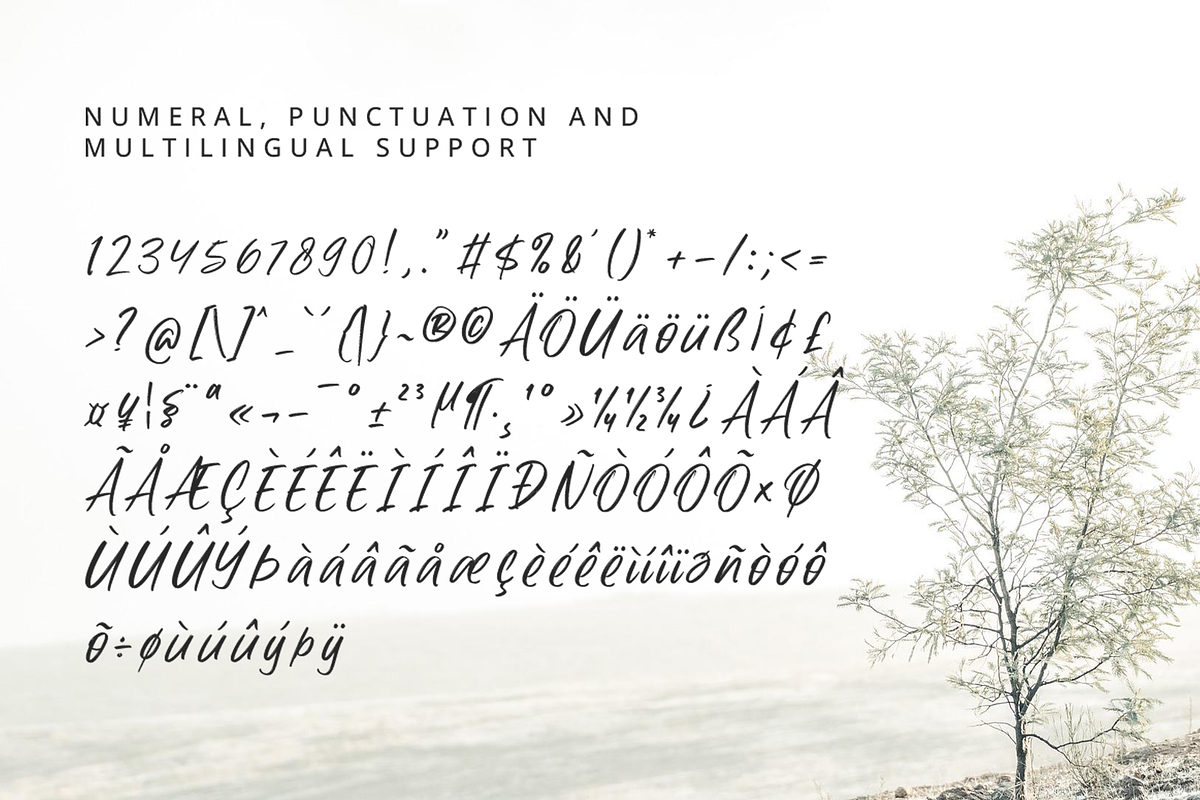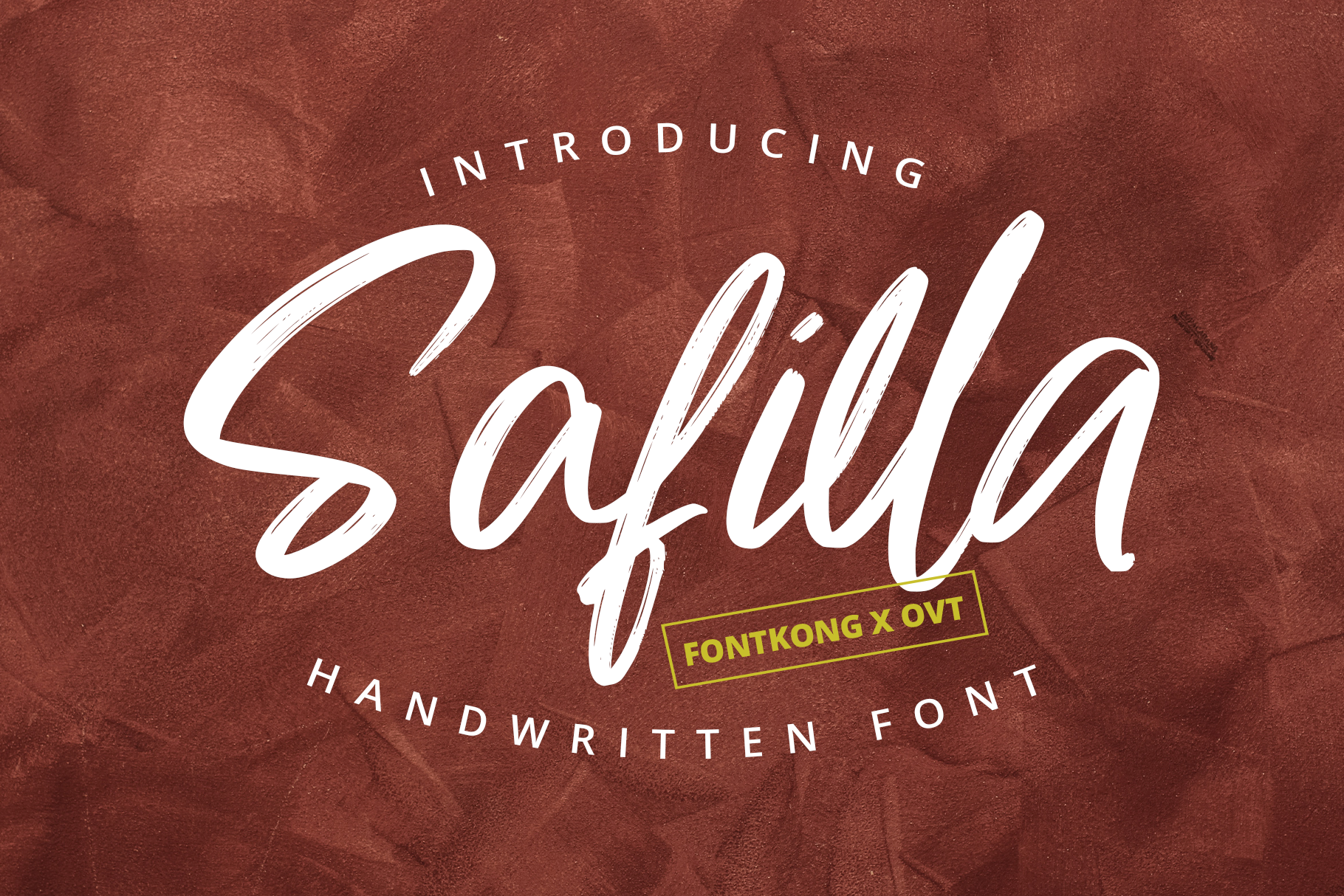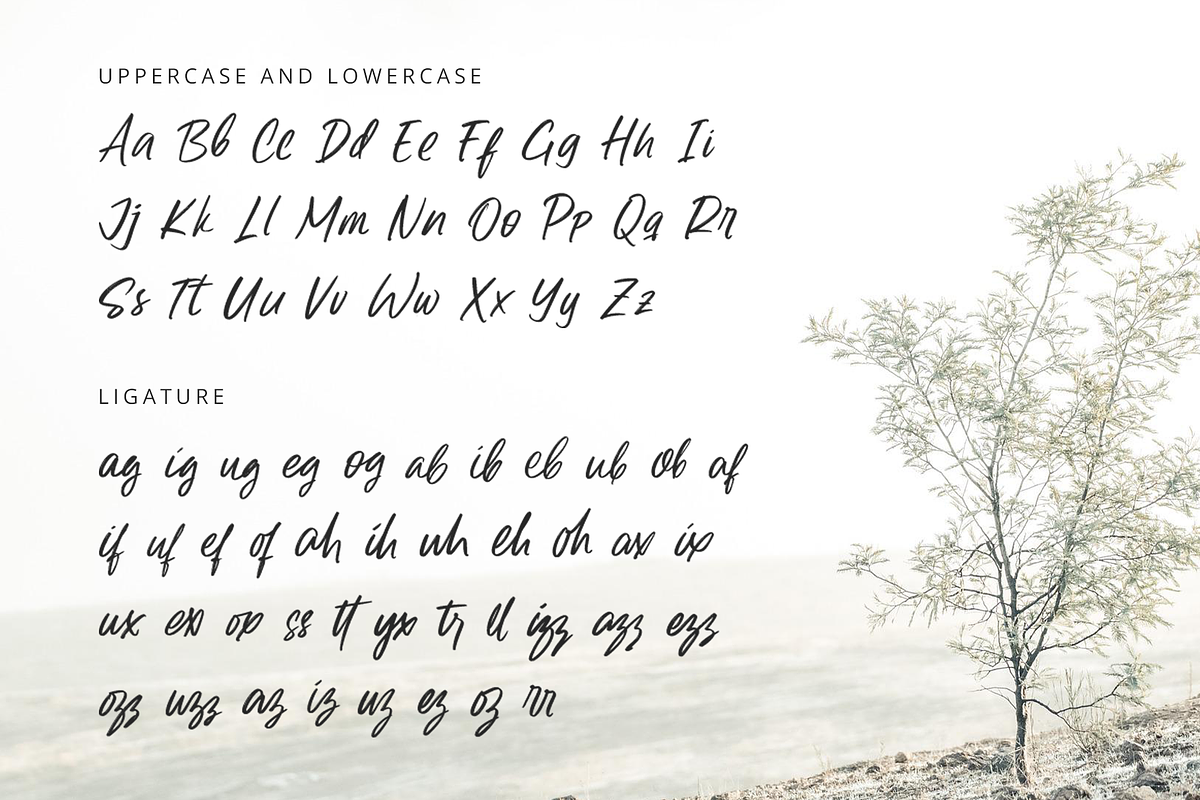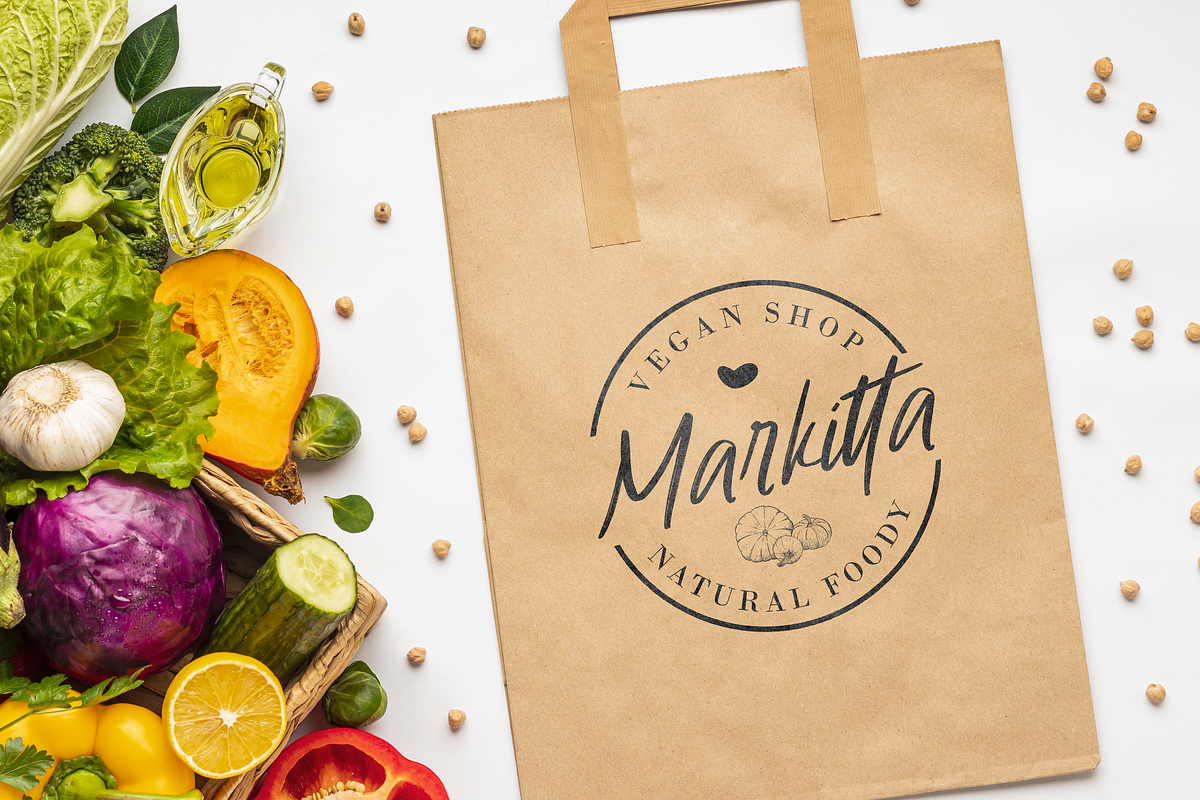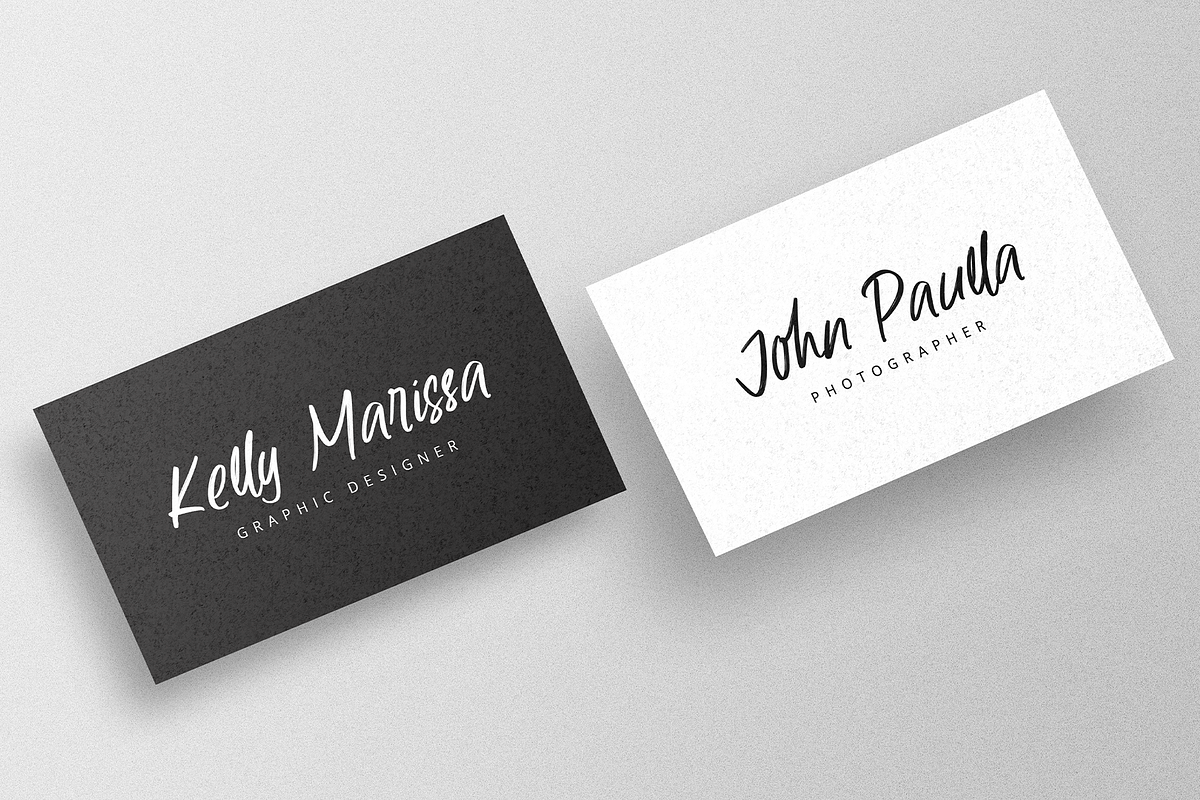
Safilla - Handwritten Font
Discover "Safilla," a charming handwritten font that brings a personal and heartfelt touch to your designs. Safilla is crafted to mimic the natural flow and texture of real handwriting, adding an authentic and intimate feel to any project.
Ideal for wedding invitations, personal branding, greeting cards, and social media graphics, Safilla's delicate curves and whimsical strokes create a sense of warmth and friendliness. This font comes with a full set of upper and lowercase letters, numerals, punctuation, and special characters, making it highly versatile for various creative applications.
Let Safilla add a unique and personal touch to your designs, enhancing them with its elegant and cozy style.